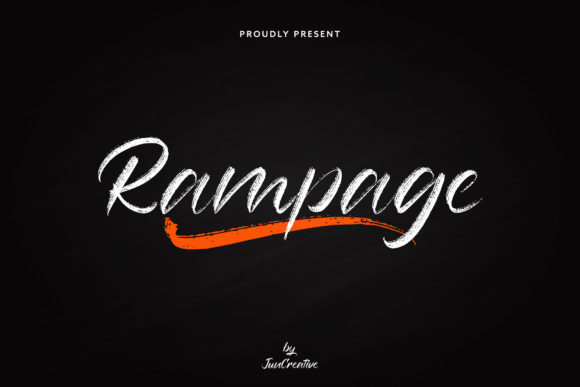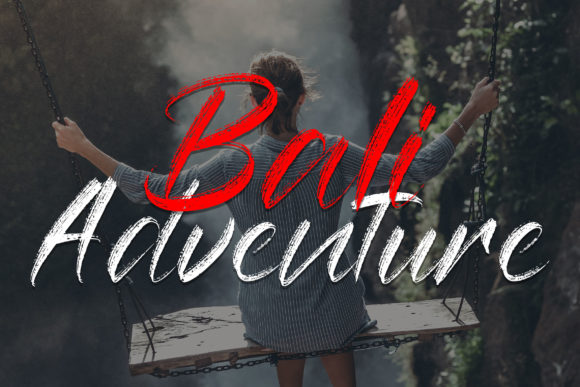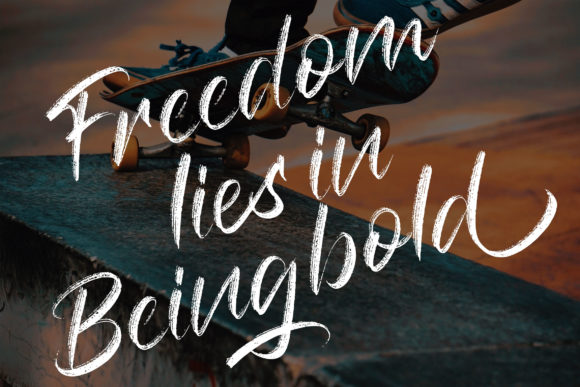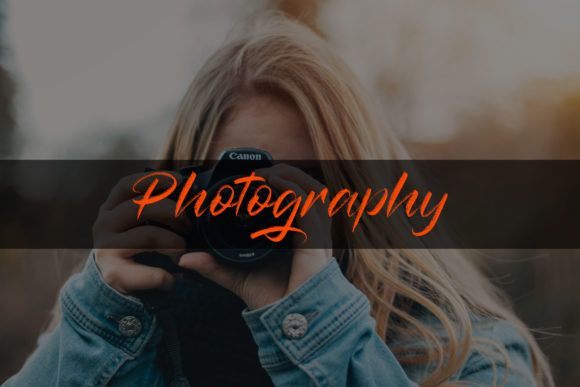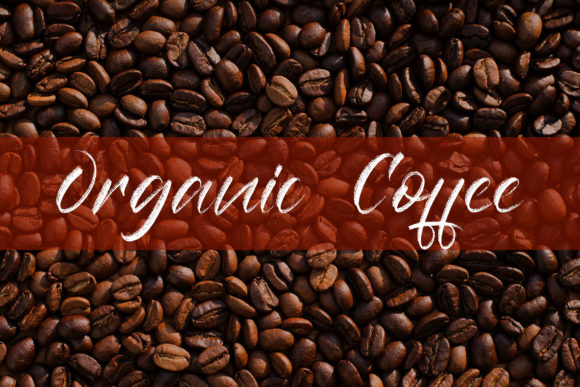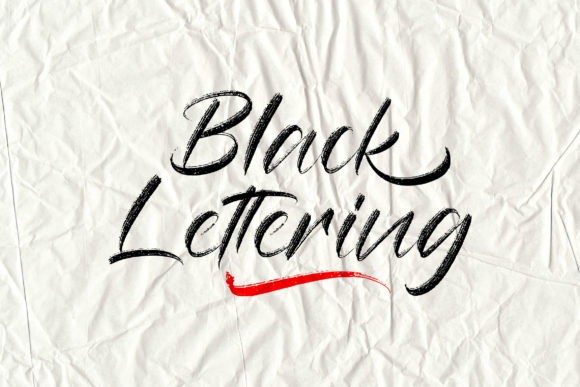
Rampage Font
About Rampage Font
Rampage Brush is a versatile and charming brush script font. It will add a contemporary touch to your designs and it is suitable clothing, invitations, book titles, stationery designs, quotes, branding, logos, greeting cards, T-shirts, packaging designs, posters and more.This font is PUA encoded which means you can access all of the glyphs and swashes with ease!